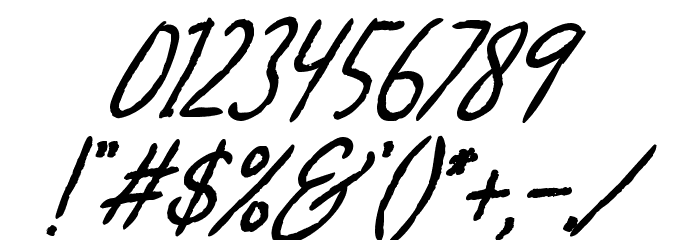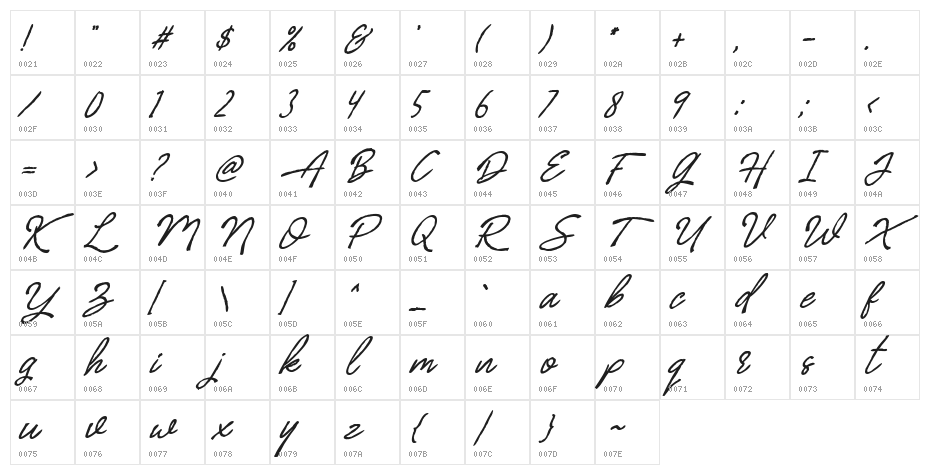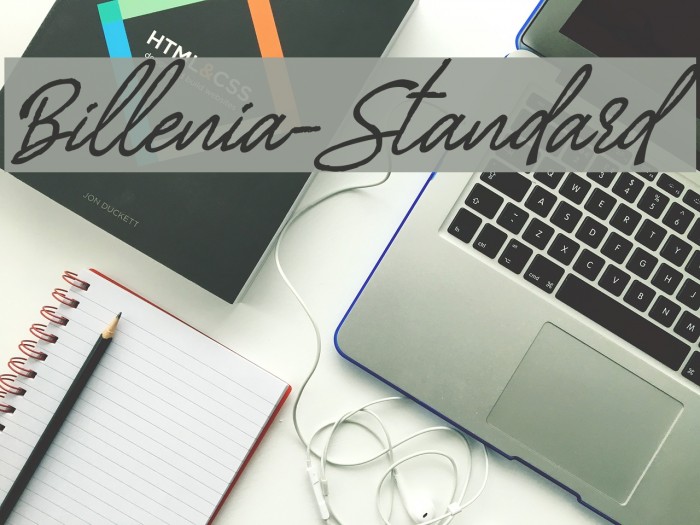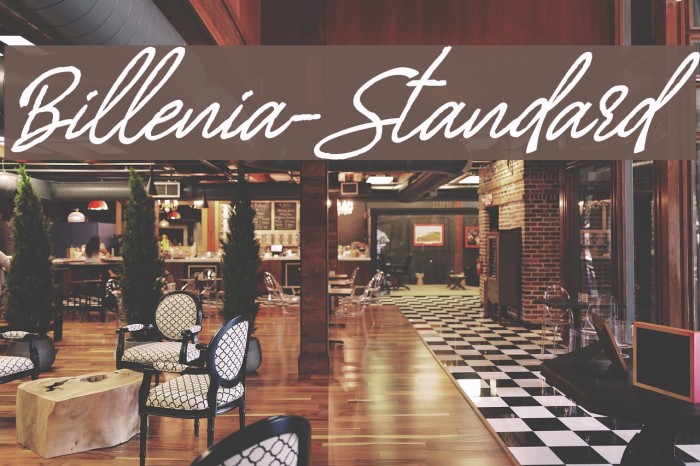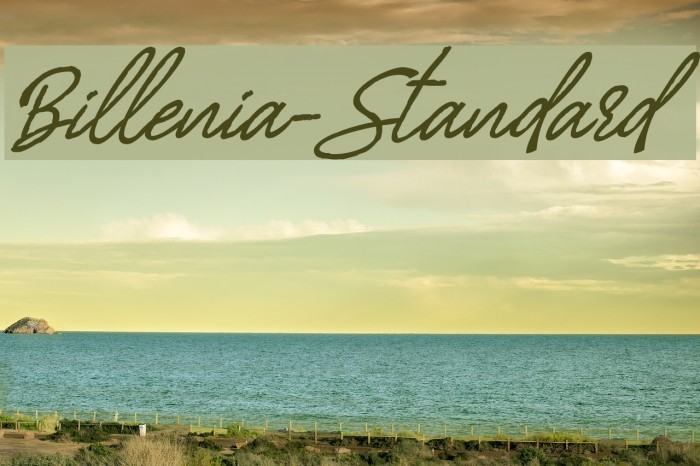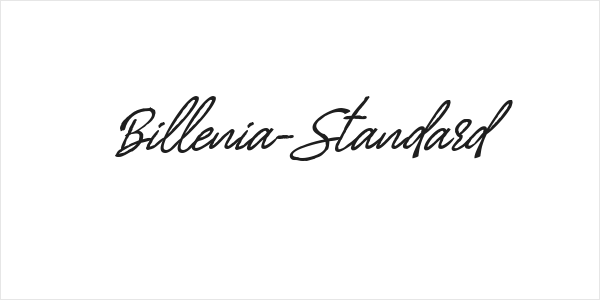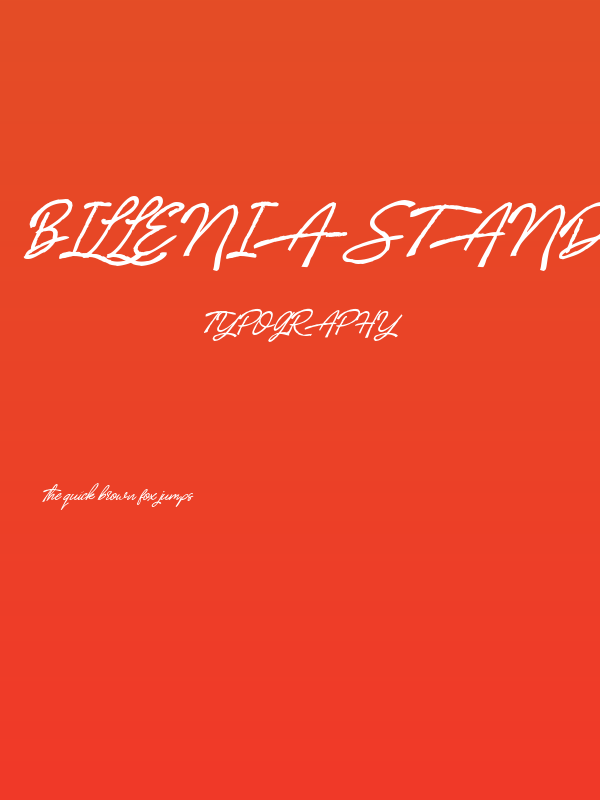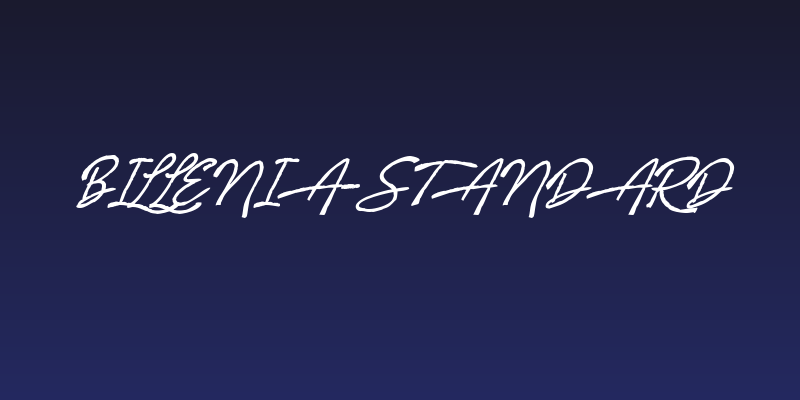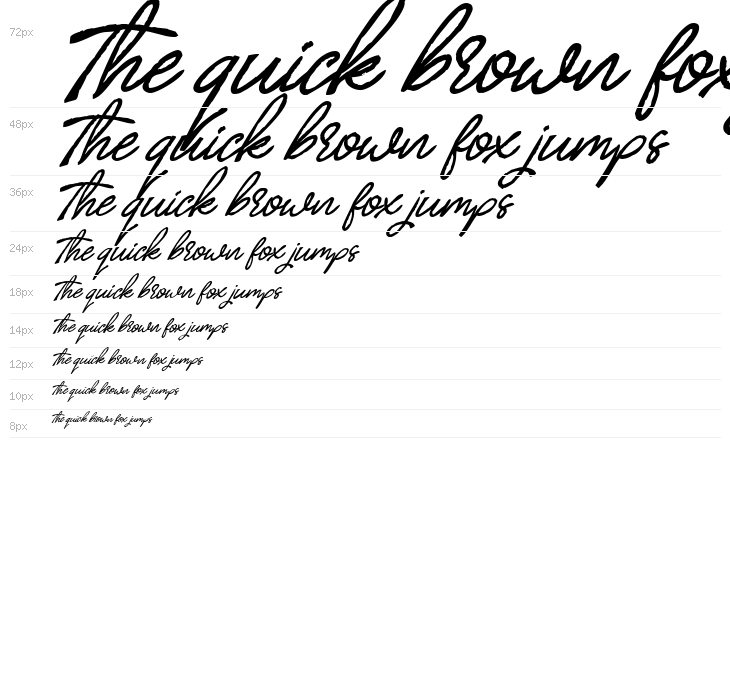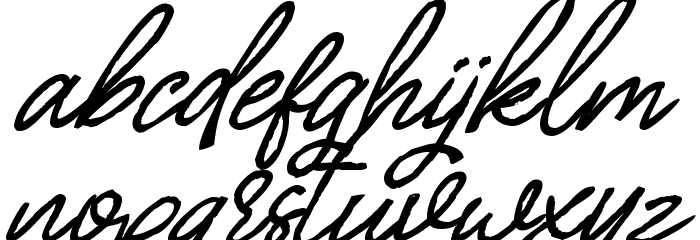
Billenia-Standard Font
Billenia-Standard Description
This font features a dynamic and fluid script style, characterized by its elegant and flowing cursive letters. The uppercase letters are bold and slightly slanted, giving a sense of movement and grace. The lowercase letters maintain a consistent flow, with smooth connections between each character, enhancing readability while maintaining a stylish appearance. The numerals are distinct and easy to read, complementing the overall aesthetic. Special characters are creatively integrated, maintaining the font's cohesive look. This font exudes a sense of sophistication and artistic flair, making it suitable for various creative applications.
| Overall Style | Elegant, Artistic |